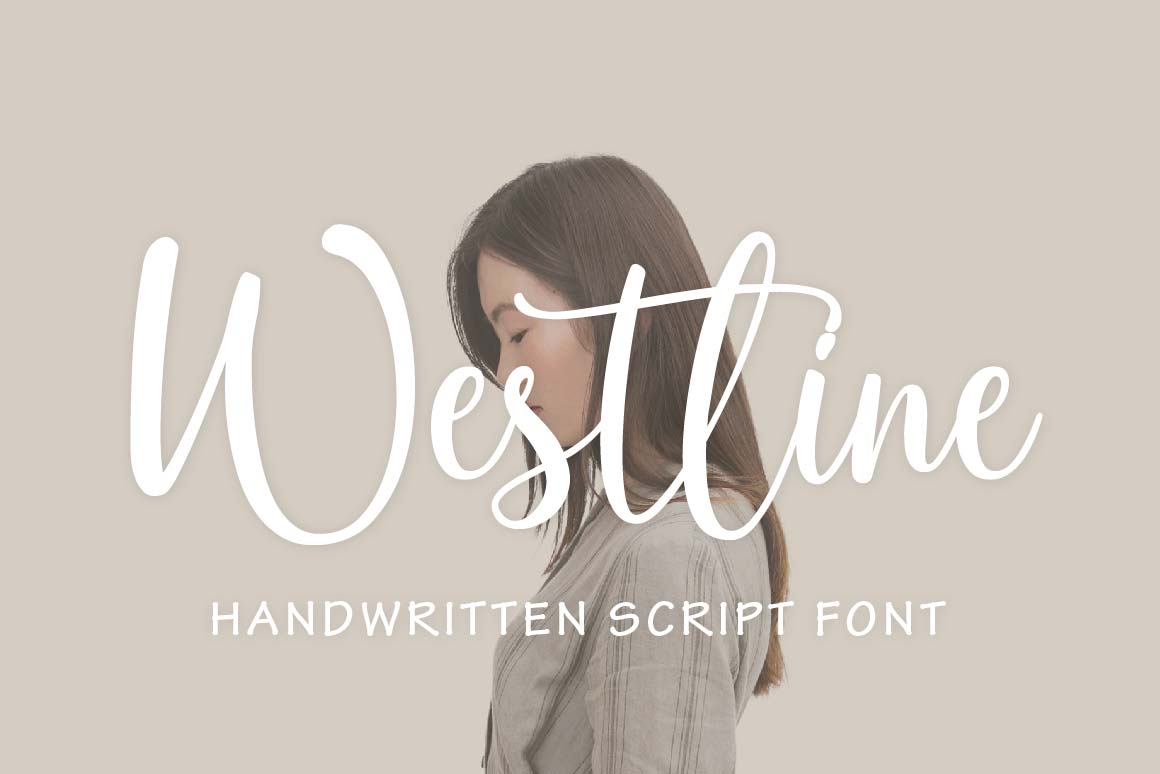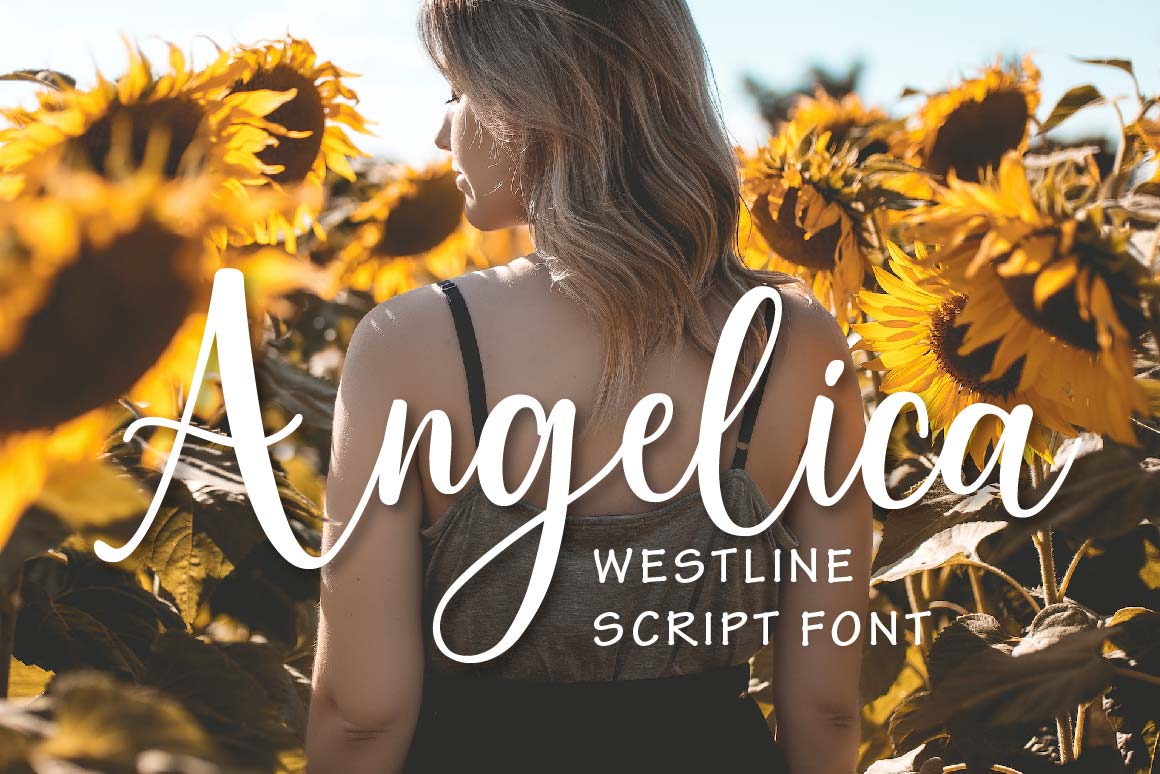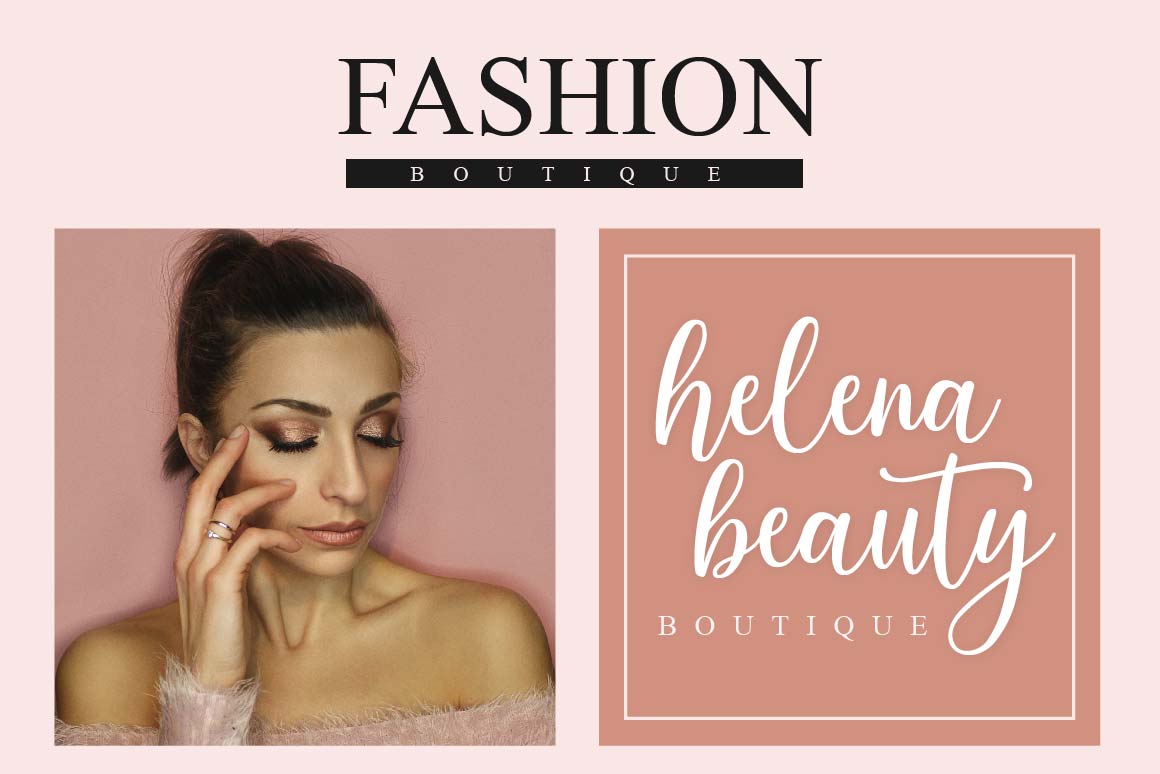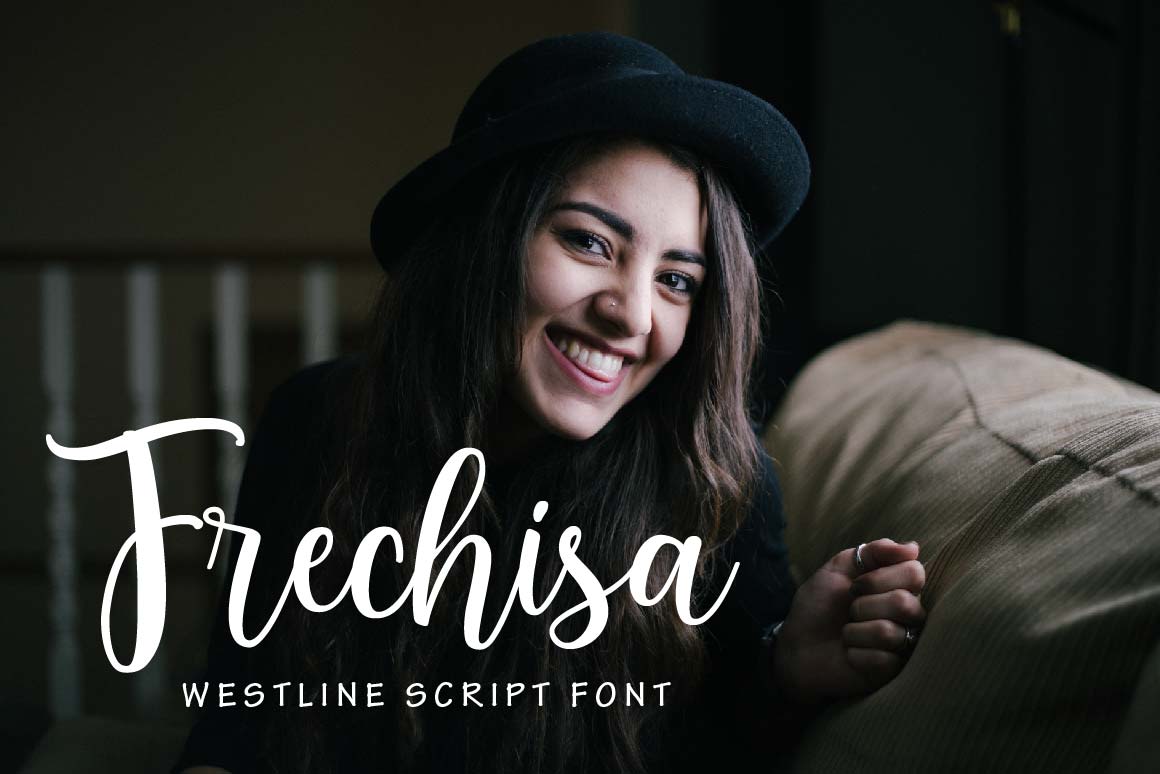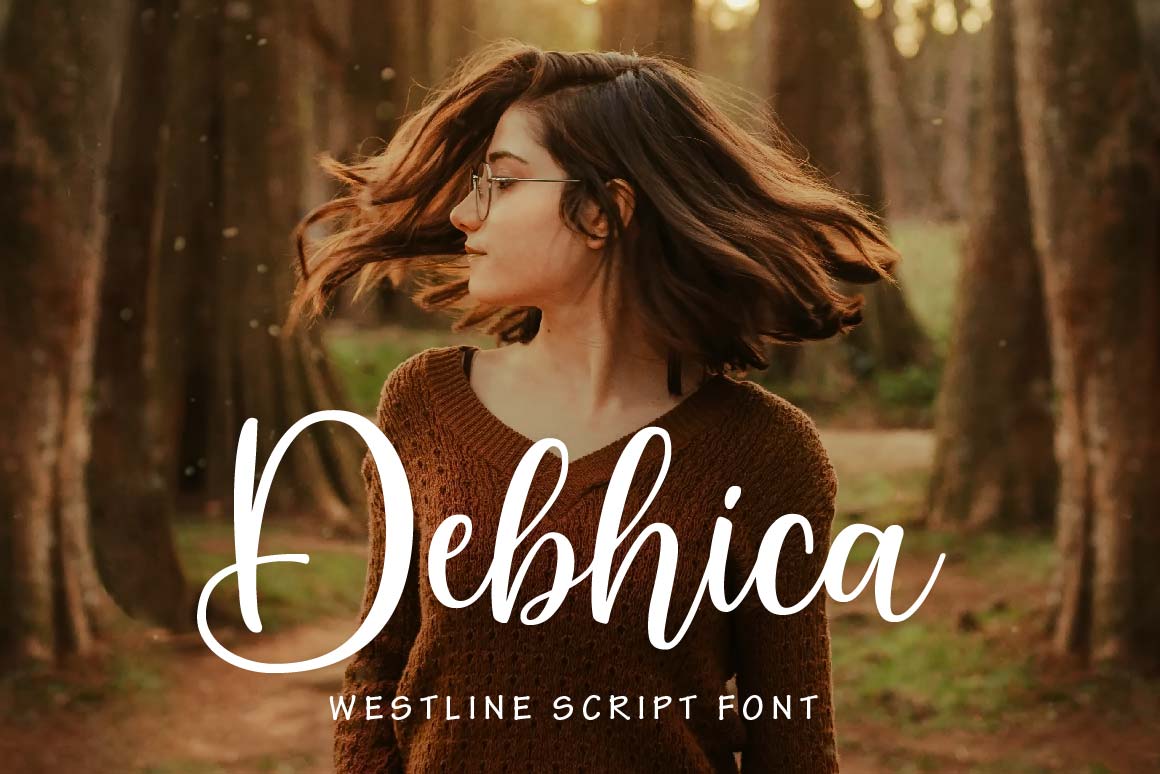
Westline Font
Westline Script FontWestline Font preview image 2Westline Font preview image 3Westline Font preview image 4Westline Font preview image 5
Westline Script Font is a beautiful script font. It has a modern style and comes with decorative ornaments. It is the perfect font for making original and outstanding designs.
– Uppercase, Lowercase, Numeral & Punctuation
– Alternate Letters, Ligature & Swash/Tail